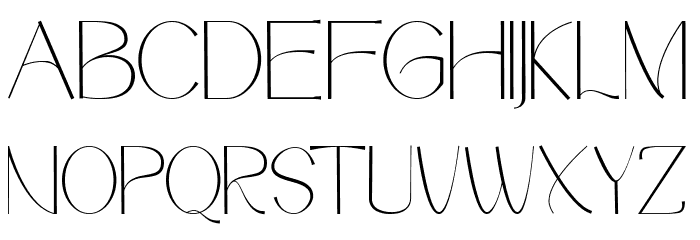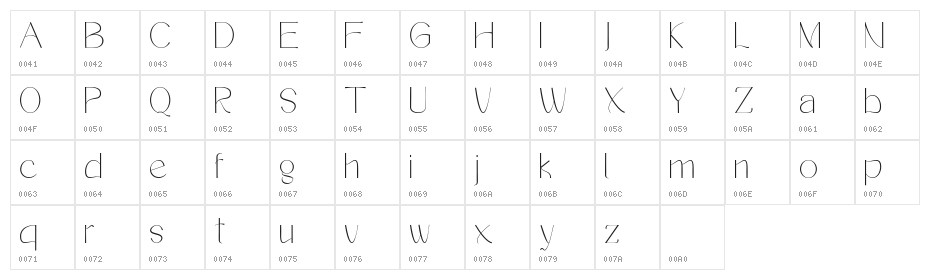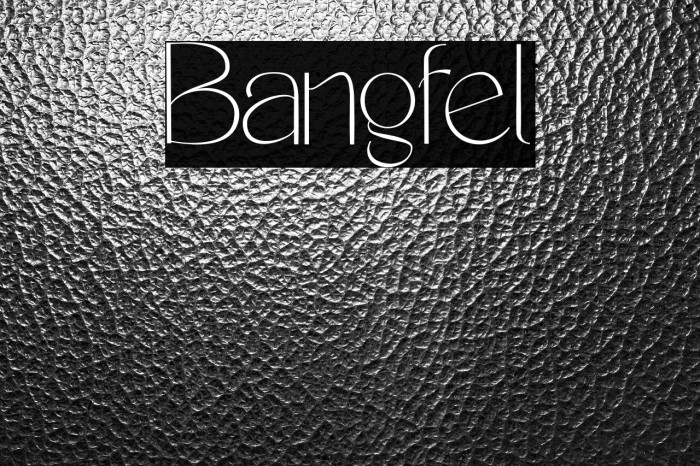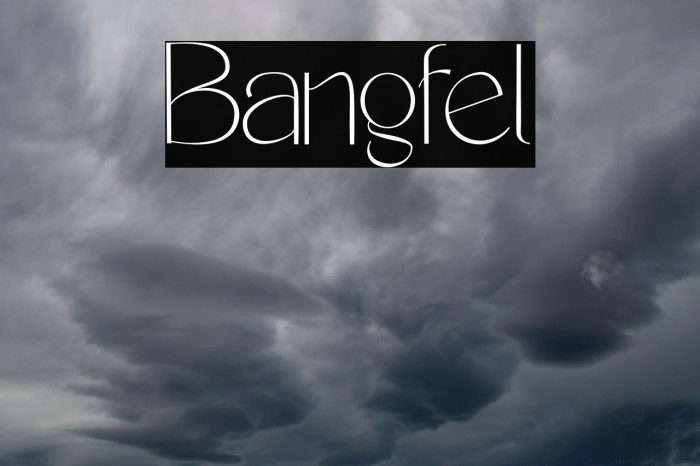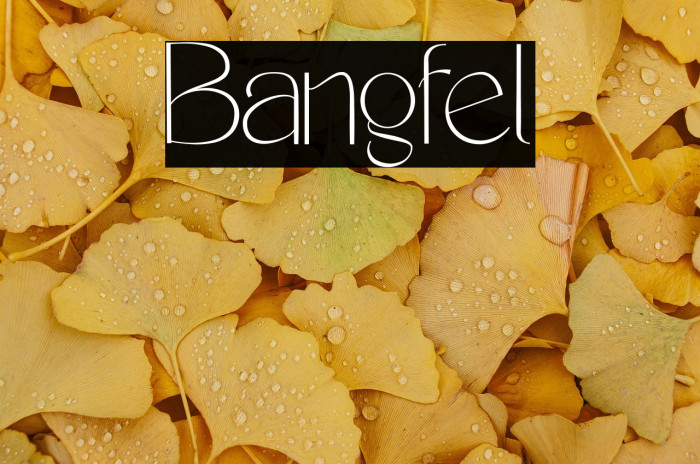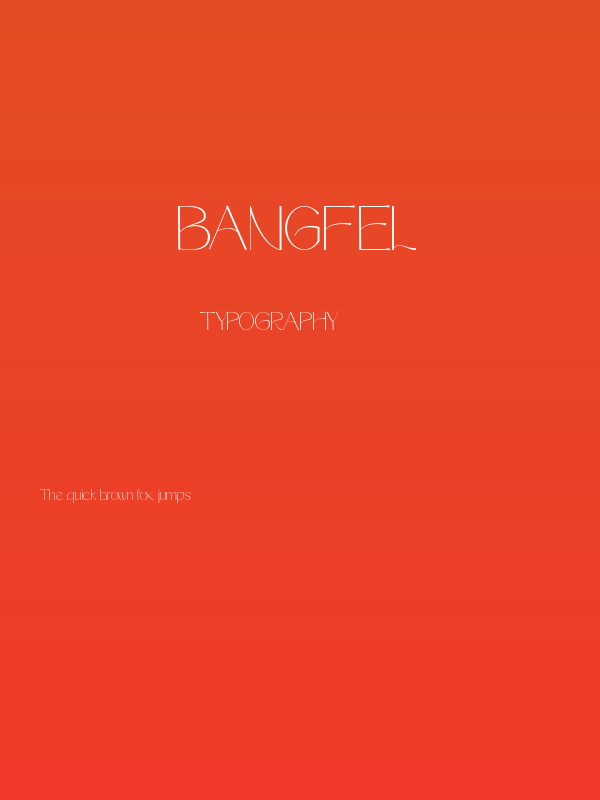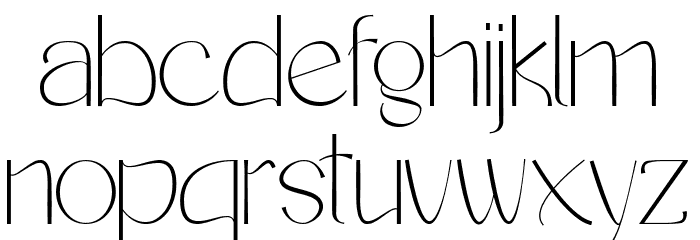
Bangfel Font
Bangfel Description
This font features a unique and modern design with thin, elongated letterforms that exude elegance and sophistication. The characters are crafted with a high contrast between thick and thin strokes, giving them a distinctive and stylish appearance. The uppercase letters are particularly tall and slender, while the lowercase letters maintain a consistent height, creating a harmonious balance. The overall design is clean and minimalistic, making it suitable for contemporary projects. The special characters are designed to match the sleek style of the alphabet, ensuring a cohesive look across all text elements.
| Proposed Projects | Ideal for fashion magazines, luxury branding, wedding invitations, and modern art posters. |